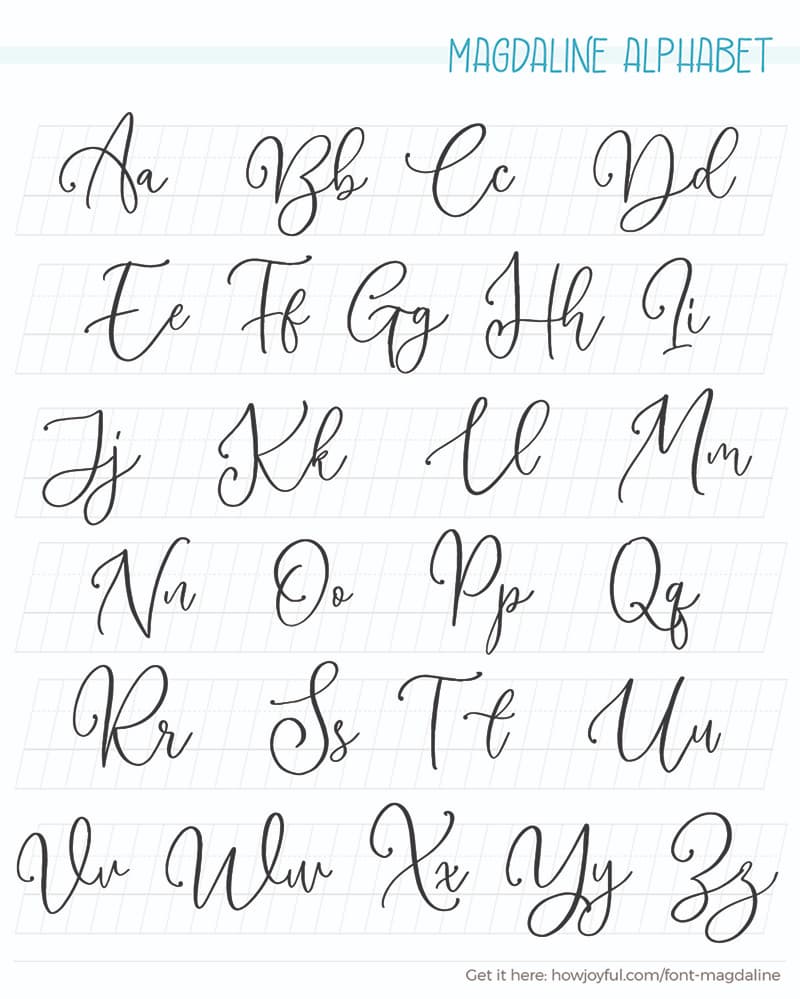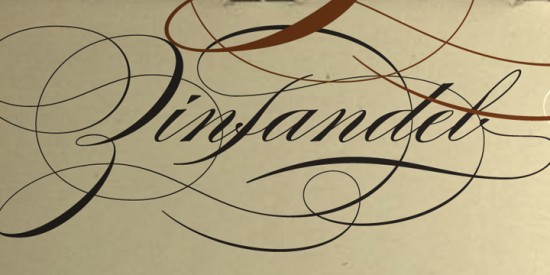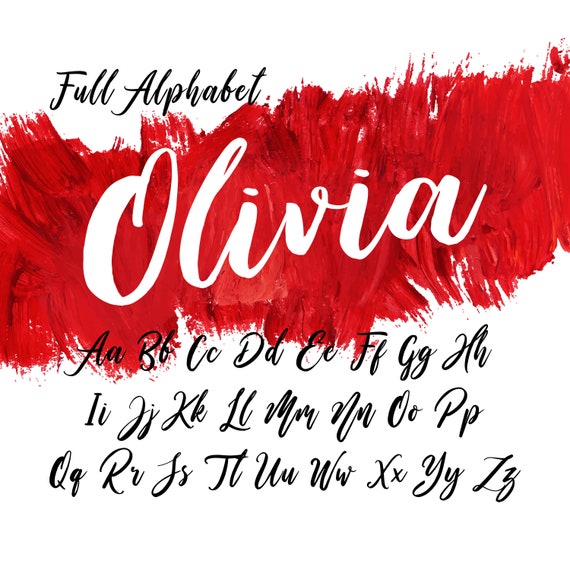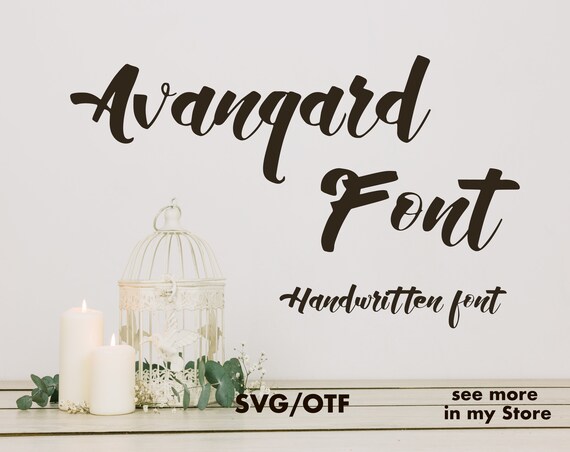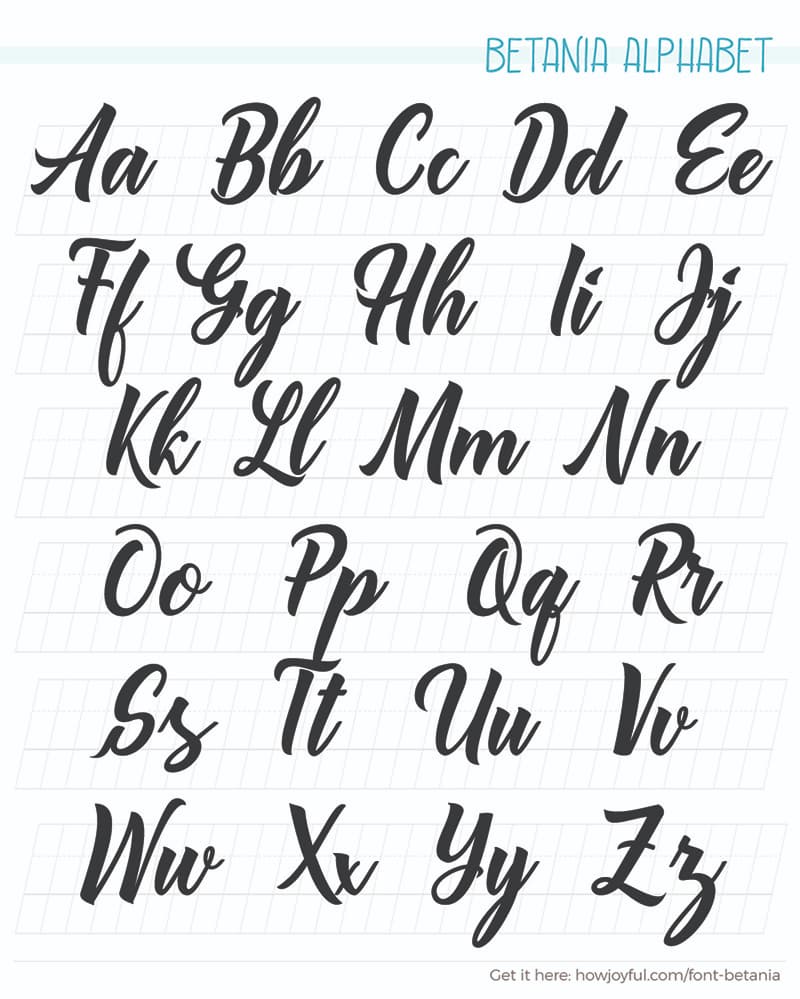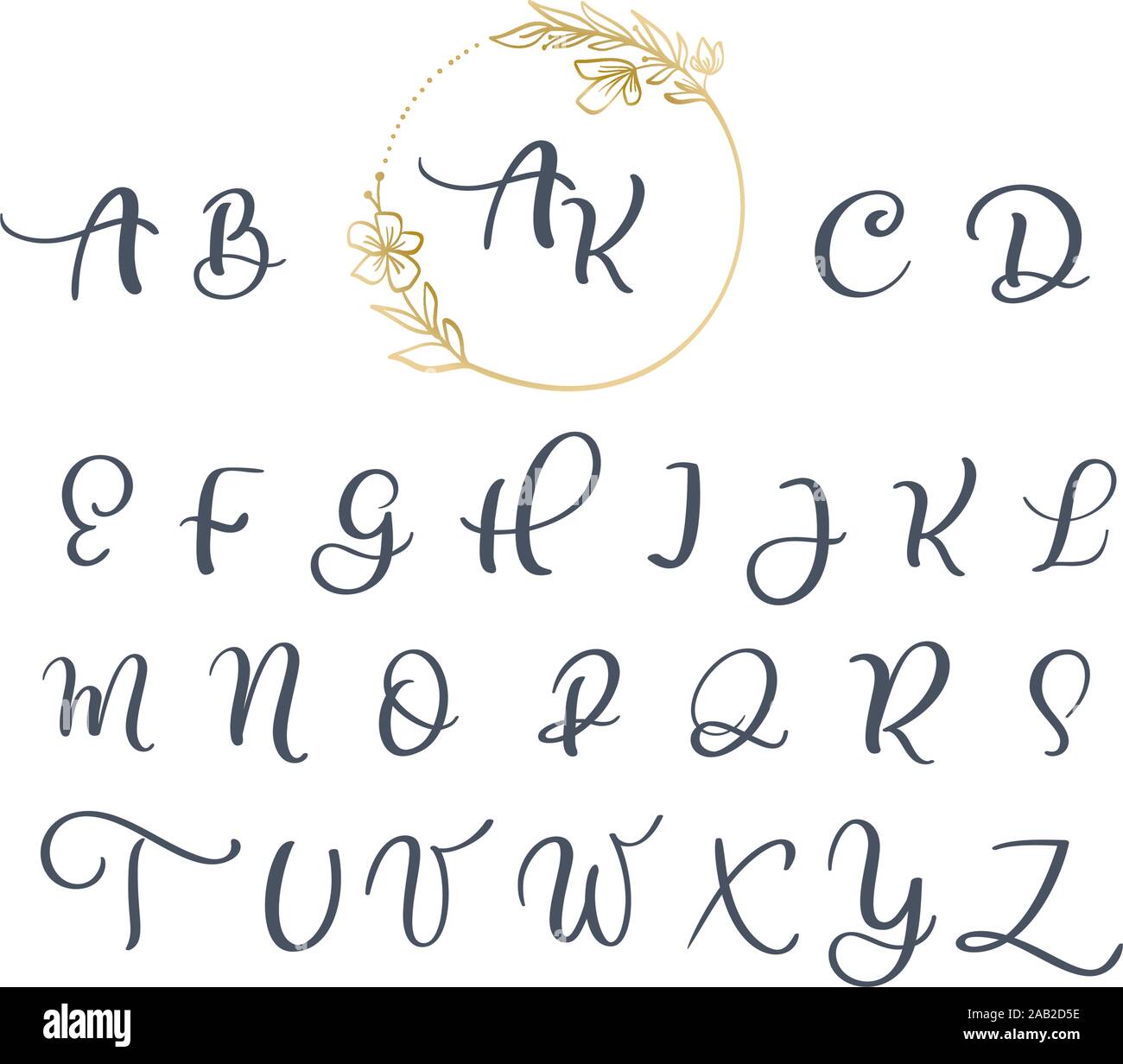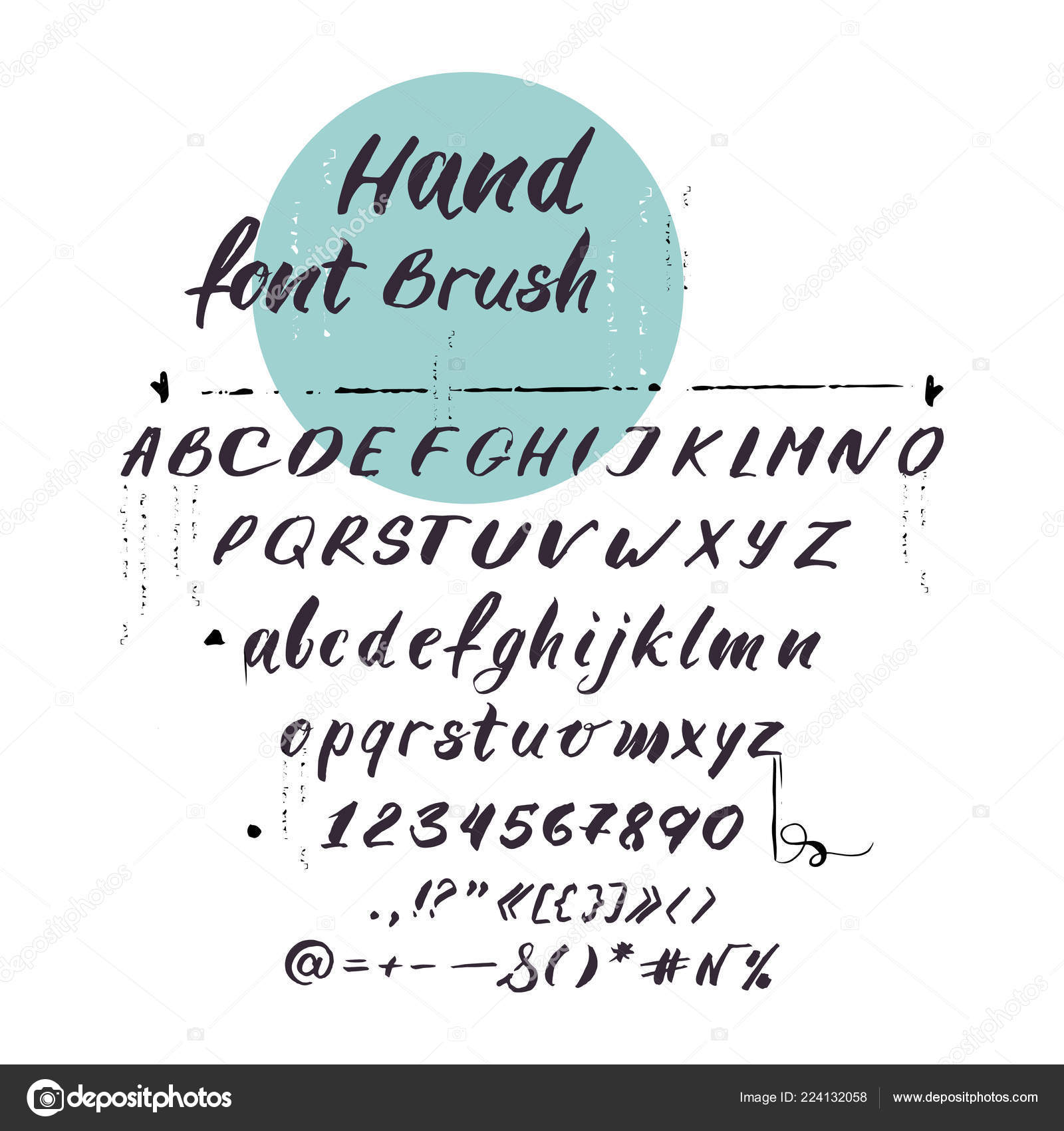
Calligraphy is an artistic writing style where the pressure is varied to create thick and thin lines all in a single stroke. This can be a great font option for t-shirts greeting cards restaurant names billboards and other similar projects.
Calligraphy alphabet cursive fonts. Cursive fonts mimic the style of human penmanship where the letters flow together. The writing is readable but is usually extravagant and embellished with flourishes. Calligraphy is an ancient writing technique using flat edged pens to create artistic lettering using thick and thin lines depending on the direction of the stroke.
The cursive handwriting style is functional and intended to be used for everyday writing. Bukhari Script Font. Free Printable Cursive Calligraphy Alphabet Styles from Letters A to L.
Cursive also known as joint writing or running writing or handwriting is any style of penmanship in which the symbols of the language are written in a conjoined andor flowing manner generally for the purpose of making writing faster. See more ideas about calligraphy handwriting cursive lettering. See more ideas about lettering tutorial lettering practice.
Old English Letter Alphabet Chart Font Numbers Copy And Paste Tattoo Graffiti Buchstaben Graffiti Schriftart Buchstaben Schriftarten. Bukhari Script font is free to use and its a bold monoline cursive font that you can use on any online or offline project. The styles of this Calligraphy Alphabet is very cursive in nature with smooth lines and neat closings at the ends.